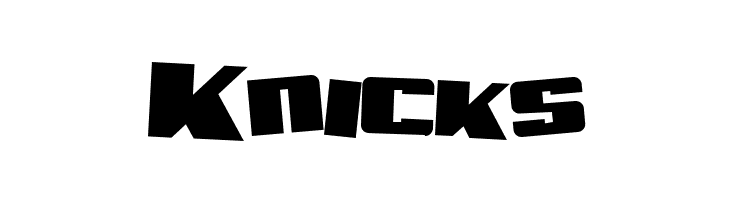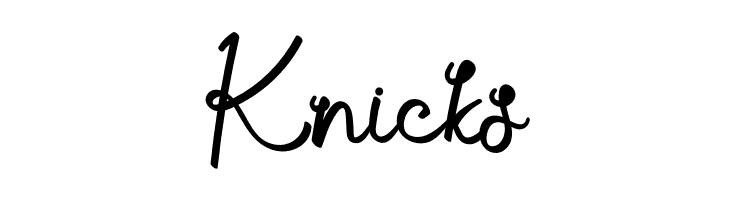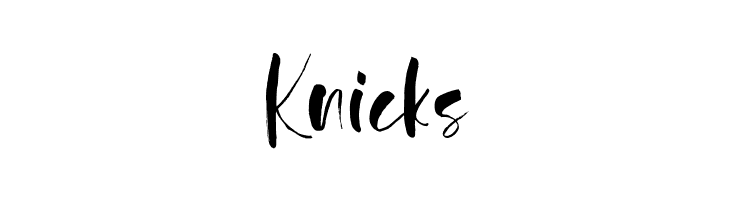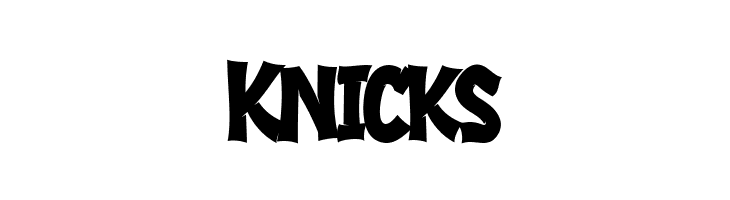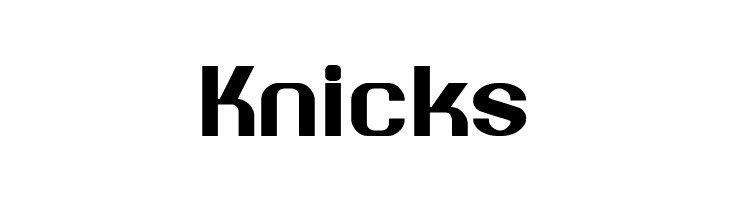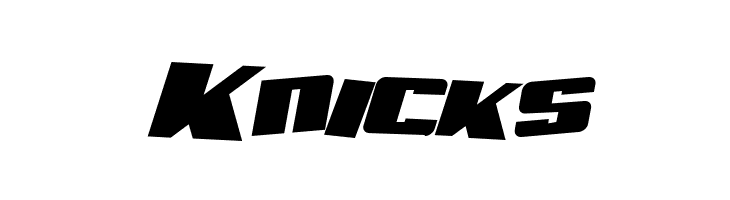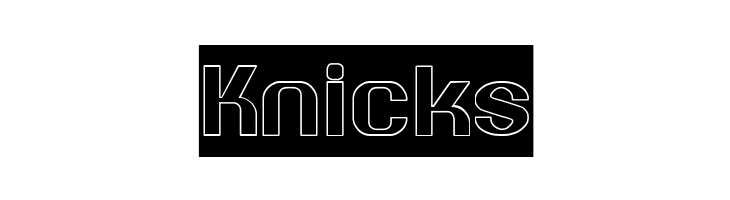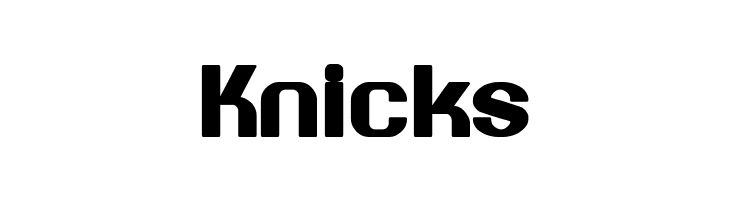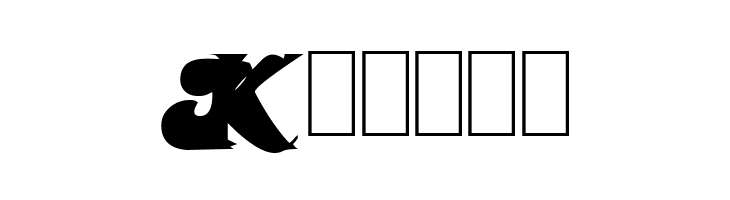
A bold, graffiti-inspired font with dynamic and angular characters.
A bold, decorative font with intricate, swirling designs and a gothic flair.
A playful, handwritten script font with smooth curves and a whimsical style.
A bold, expressive handwritten font with fluid strokes and artistic flair.
A bold, modern font with geometric and rounded elements, offering a strong and structured appearance.